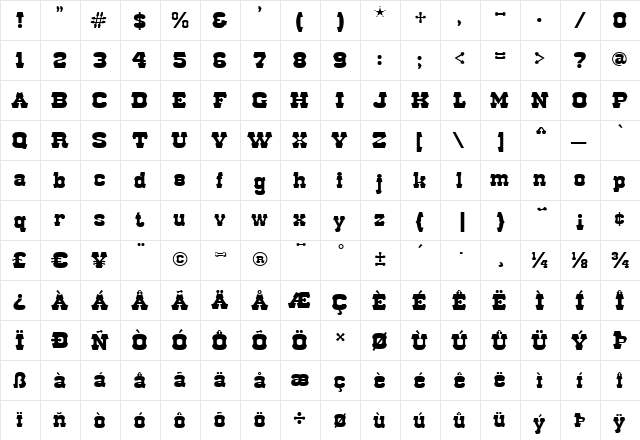
Red Dog Saloon Open Fill Regular
Design Context for Red Dog Saloon Open Fill Typeface
Red Dog Saloon Open Fill taps into classic Western woodtype traditions — bold, characterful, and impossible to ignore.
A natural fit for craft spirits, ranch branding, rodeo events, and Americana-inspired design work.
Font Pairing: Combine Red Dog Saloon Open Fill with a simple slab or neutral sans — period-accurate companions reinforce the vintage feel without competing for attention.
Pro Tip: Use Red Dog Saloon Open Fill for short, impactful bursts of text — it shines in poster headlines and product names rather than extended copy.